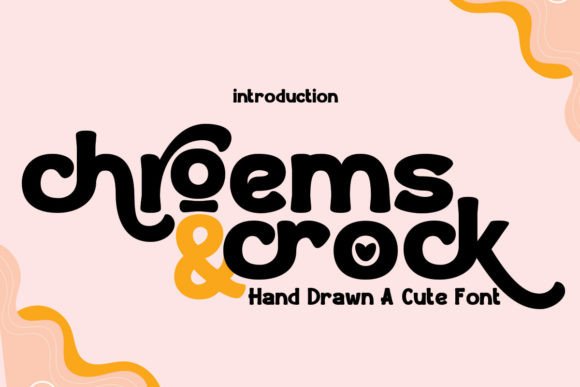
Prepare to be captivated by the enchanting fusion of Chroems and Crock, a captivating display font that exudes charm and playfulness. Designed by the talented jehansyah251, this font family radiates a retro vibe that will transport you back in time.
With its bold and clean lines, Chroems and Crock effortlessly adds a touch of nostalgia to any project. Its simplicity and cuteness make it ideal for social media stories, invitations, signage, and any other creative endeavor that demands attention.
Step into a world of creativity with Chroems and Crock, where your words dance with a vintage flair. Its versatility knows no bounds, allowing you to effortlessly craft designs that ooze personality and charm.
Unleash your imagination and let Chroems and Crock take you on a retro adventure. Its timeless appeal will make your designs stand out from the crowd, leaving a lasting impression on your audience.